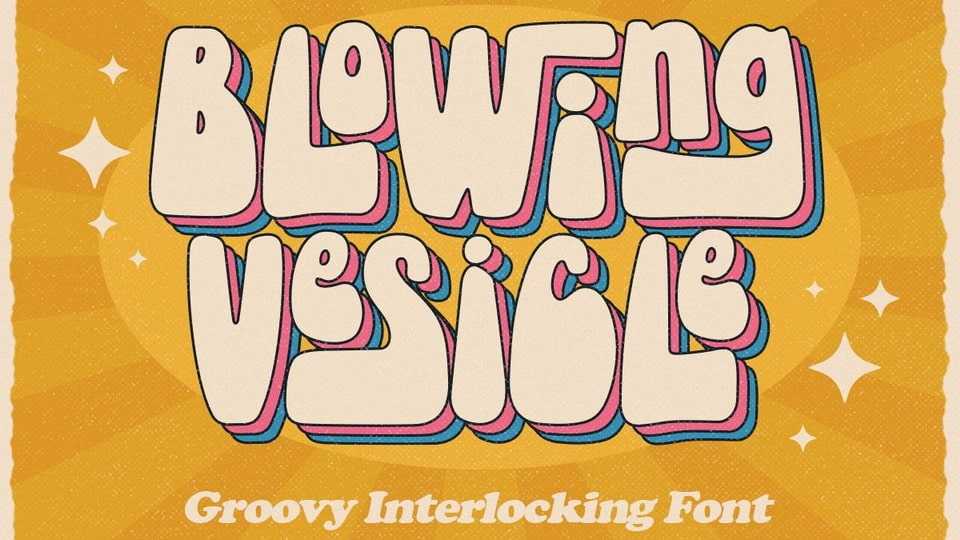
Download Blowing Vesicle font, a retro bold typeface which will bring you back to 60s feel. Blowing Vesicle font perfectly made to be applied especially in logo, and the other vintage projects such as invitations, labels, packaging or any type of advertising purpose.